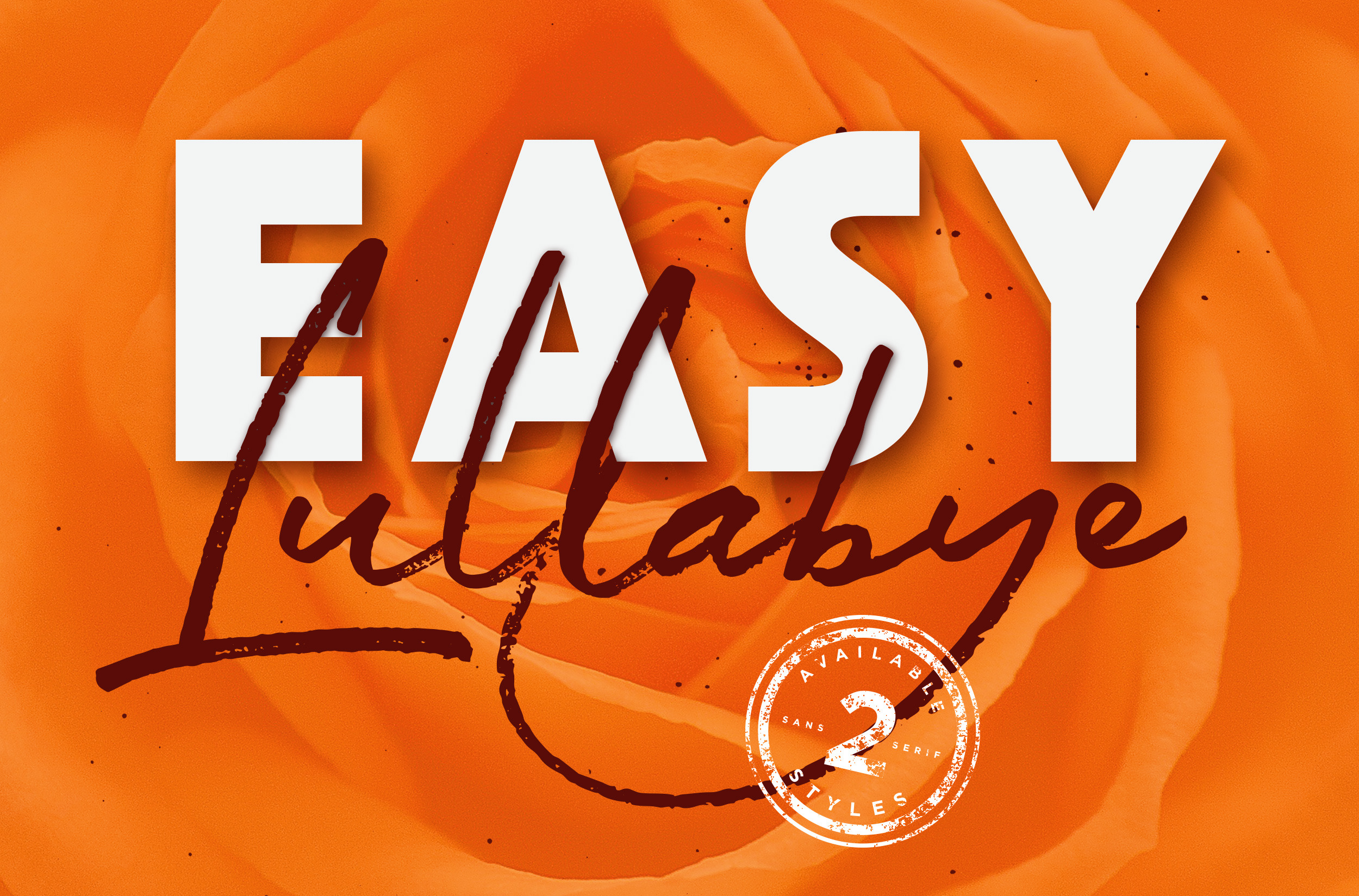
Easy Lullabye logo branding font
Proudly present, Easy Lullabye, a double fonts with implementation of fast handwriting with a marker and bold tough sans-serif style that you'll love to hate (edit : hate to love). Perfectly fit for your casual logo, branding, wedding stuff, crafted stuff, or anything when you need a double pairing casual fonts but still chic, you'll never go wrong with them.
Easy Lullabye Script : A loose casual handwriting script font from the marker stroke but as fast as you signing a million dollar contract. It got a Stylistic Alternates and Ligatures feature to make the handwriting feel more realistic in your design.
Easy Lullabye Sans : A tough and bold sans-serif font to be the good husband for the Easy Lullabye Script. You can type it small and far spacing under the Easy Lullabye Script to make a chic yet casual logo, or you can type it big and use Easy Lullabye Script stacked in the front of it bigger, to make a stand out or shout out words. Yes that's one of the cheat sheet i told you for working with these kinda font (no need to thank me of course, its all yours :)
Easy Lullabye Swash : Some people needs an underline or maybe a fancy underline to finish the quote of every words that they wrote. And that's what it came for, you can mix it up under your design with it. type it from A to T and you can get so many good swash on it.